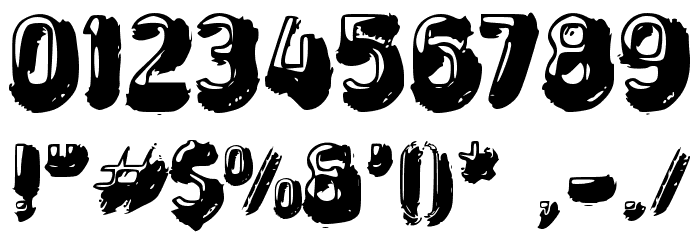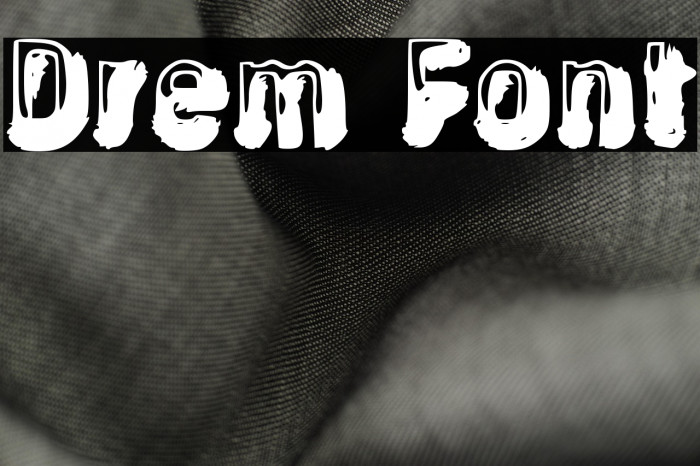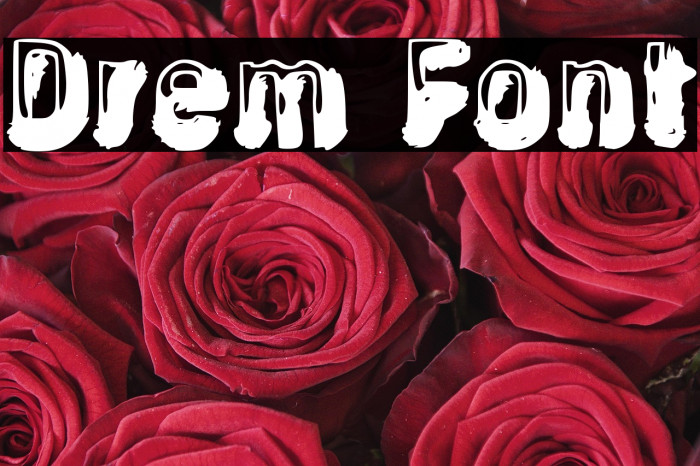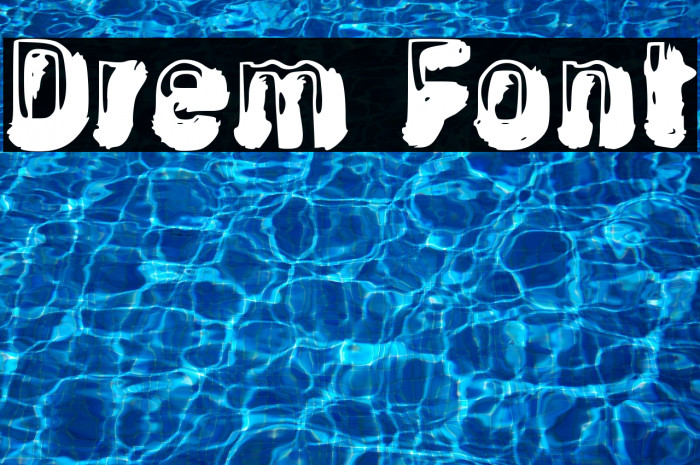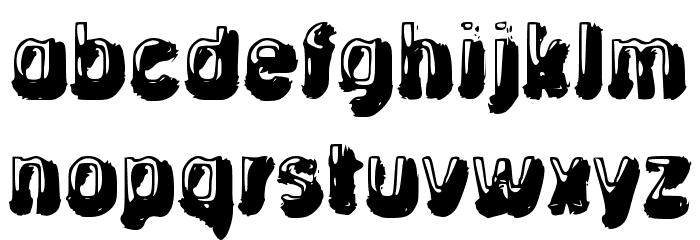
Drem Font
Drem Description
This font features a bold and dynamic style with a distressed, grunge-like texture that gives it a unique, edgy appearance. The characters are thick and heavy, with irregular edges and a hand-painted feel. The uppercase and lowercase letters maintain a consistent weight, while the numbers and special characters follow the same rugged aesthetic. The font's boldness and texture make it stand out, ideal for projects that require a strong visual impact.